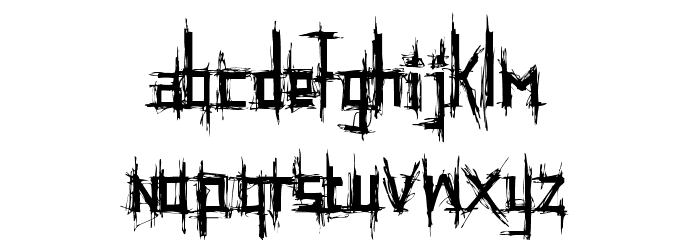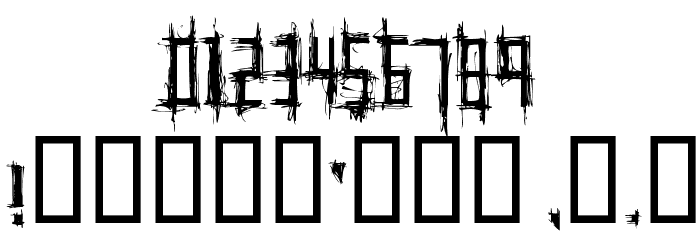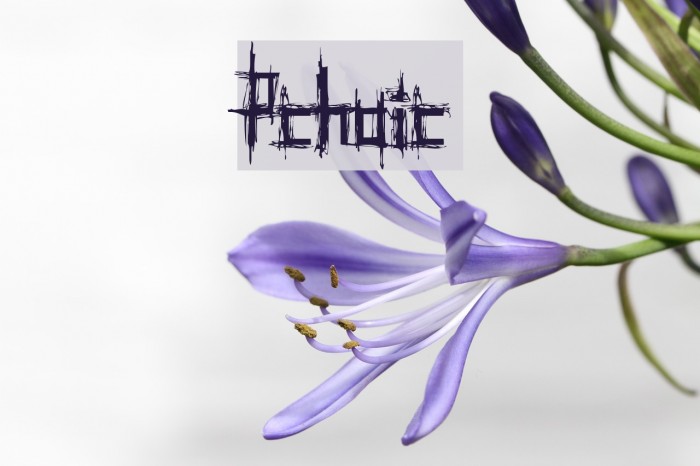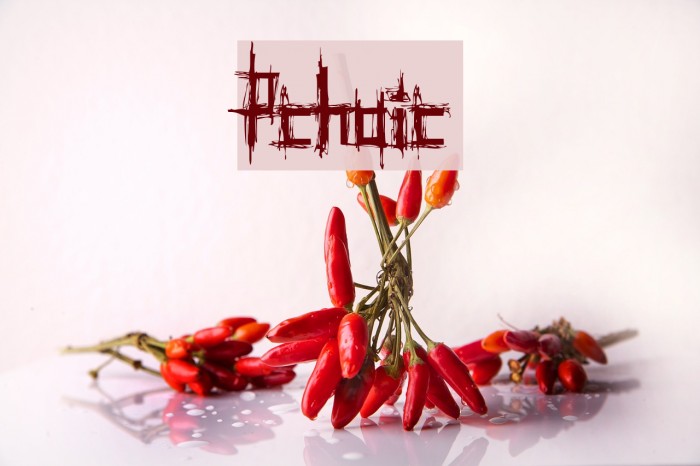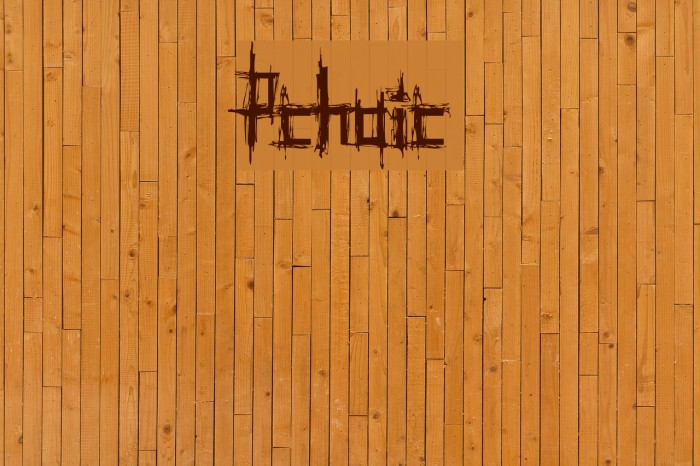
Psychotic Font
This font features a highly decorative and chaotic design, characterized by jagged, irregular strokes that give it a distressed and edgy appearance. The letters are constructed with sharp, angular lines that intersect and overlap, creating a sense of movement and energy. This style is reminiscent of graffiti or horror-themed aesthetics, making it stand out with its unique and unconventional look. The uppercase and lowercase letters maintain a consistent style, while the numbers and special characters follow the same jagged theme, ensuring uniformity across all glyphs. The font's distinctiveness makes it suitable for projects that require a bold and dramatic visual impact.
A chaotic, jagged font with a distressed, edgy appearance.
- Proposed Projects: Ideal for horror-themed designs, album covers, posters, and edgy branding projects.
- Character Spacing: Tight
- Use Case: Logos, Posters, Headlines